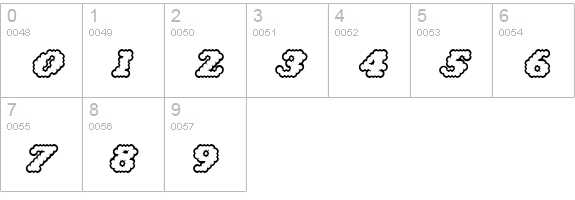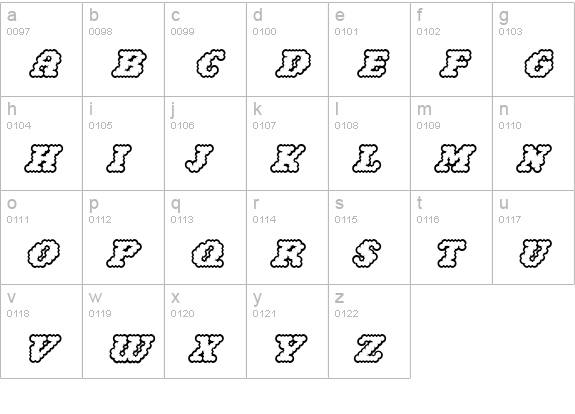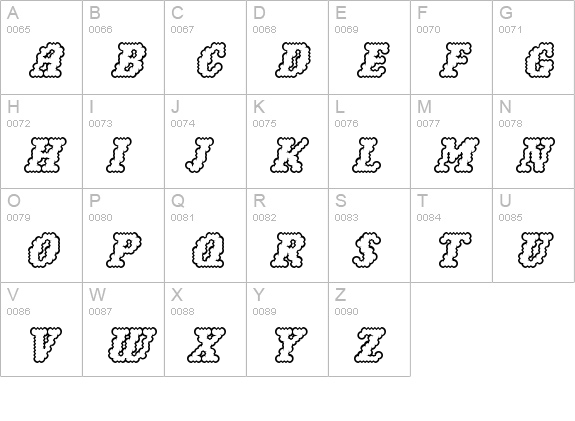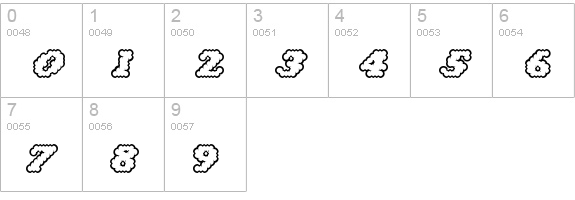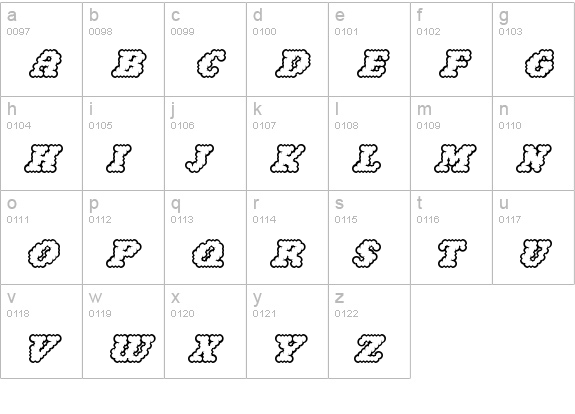
NarlyOutline Font Details
Introducing NarlyOutline font - a trendy and versatile typeface that is perfect for all your design projects. With its unique outline style and modern aesthetic, NarlyOutline font will make your text stand out and grab the attention of your audience. This font is free to use and is available for download at FontsMarket.com, allowing you to easily incorporate it into your creative work without any cost. Whether you're designing posters, logos, social media graphics, or any other visual content, NarlyOutline font is sure to add a touch of sophistication and style to your designs. Get your hands on this fantastic font today and elevate your projects to the next level!